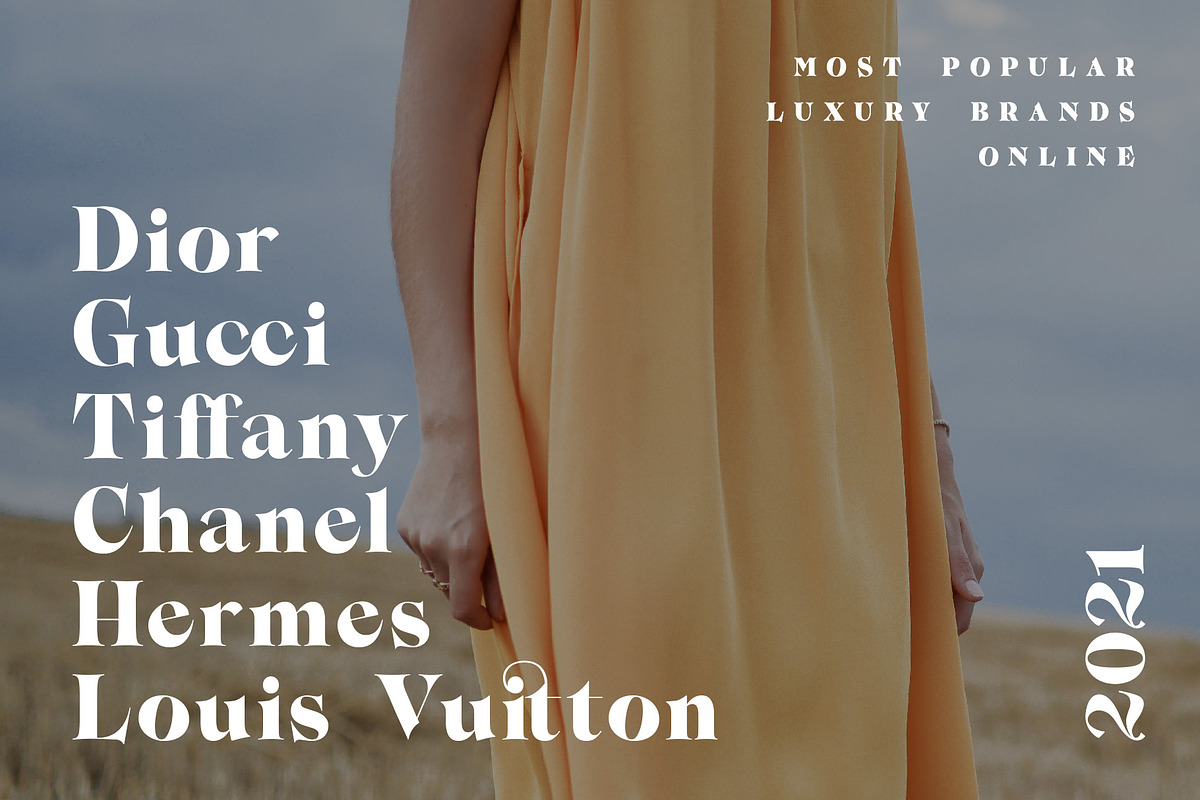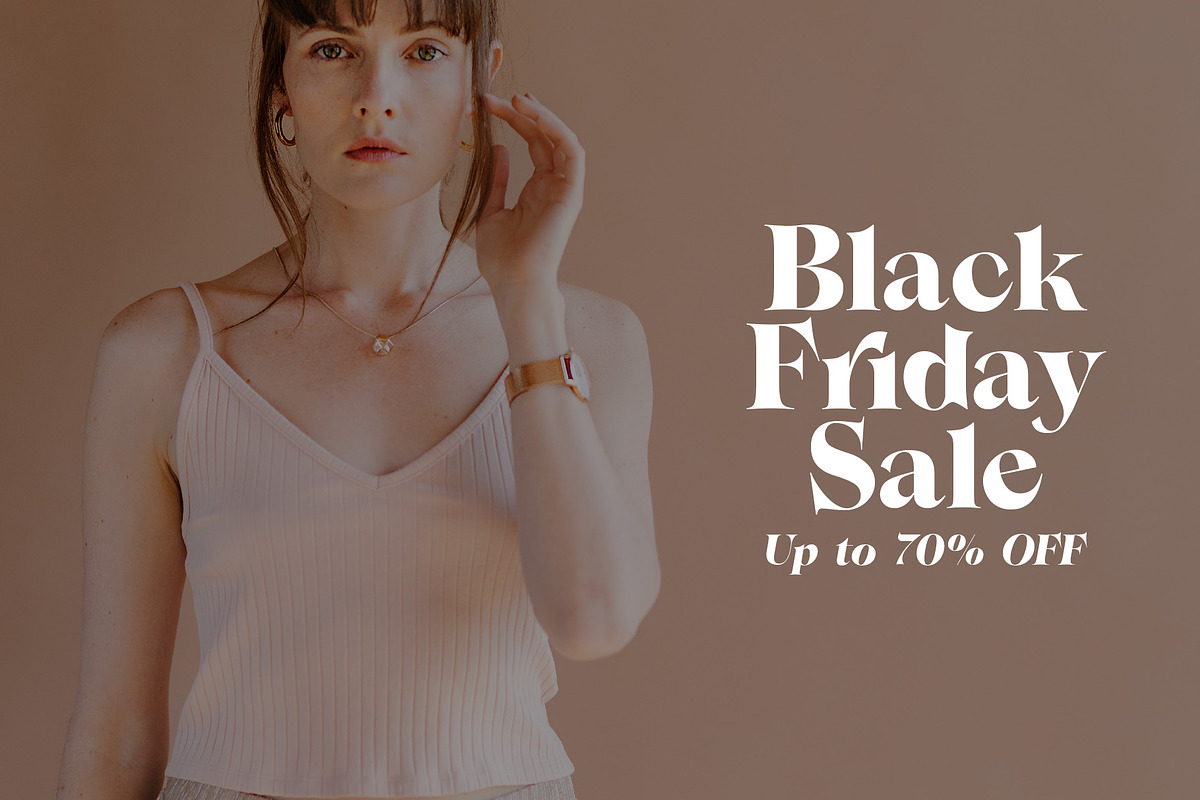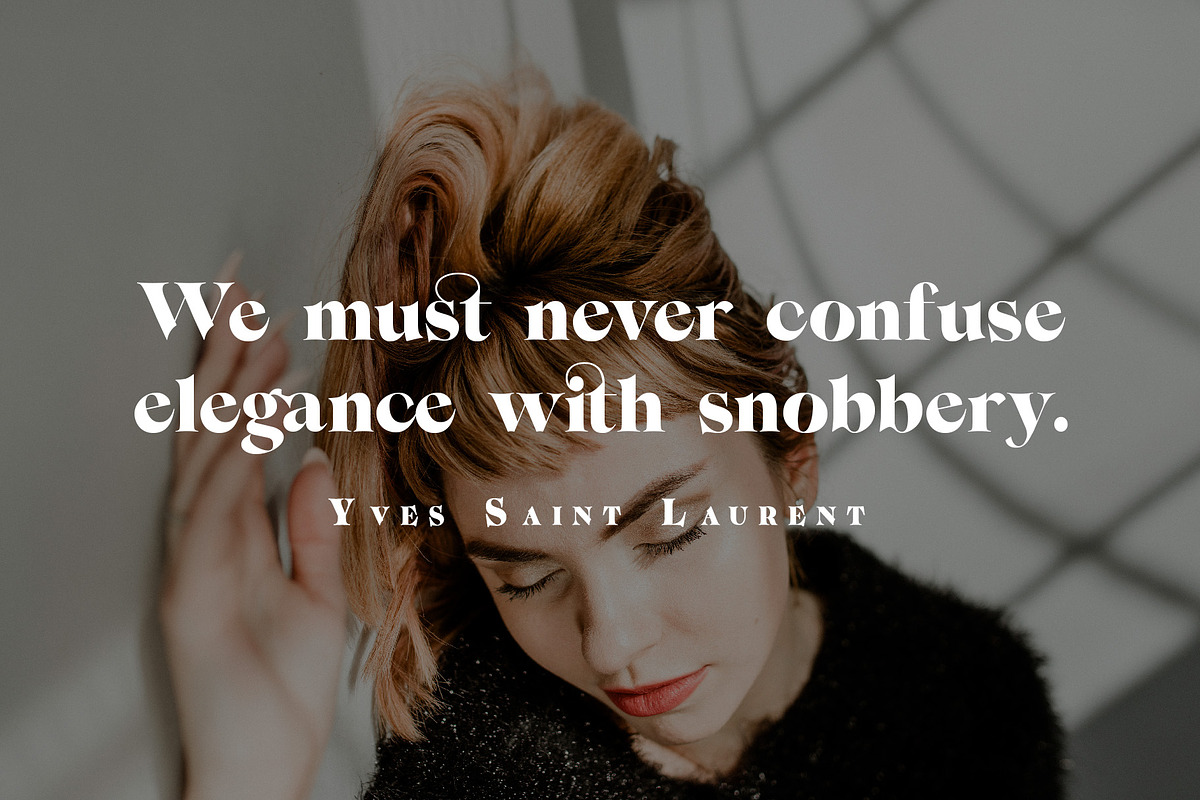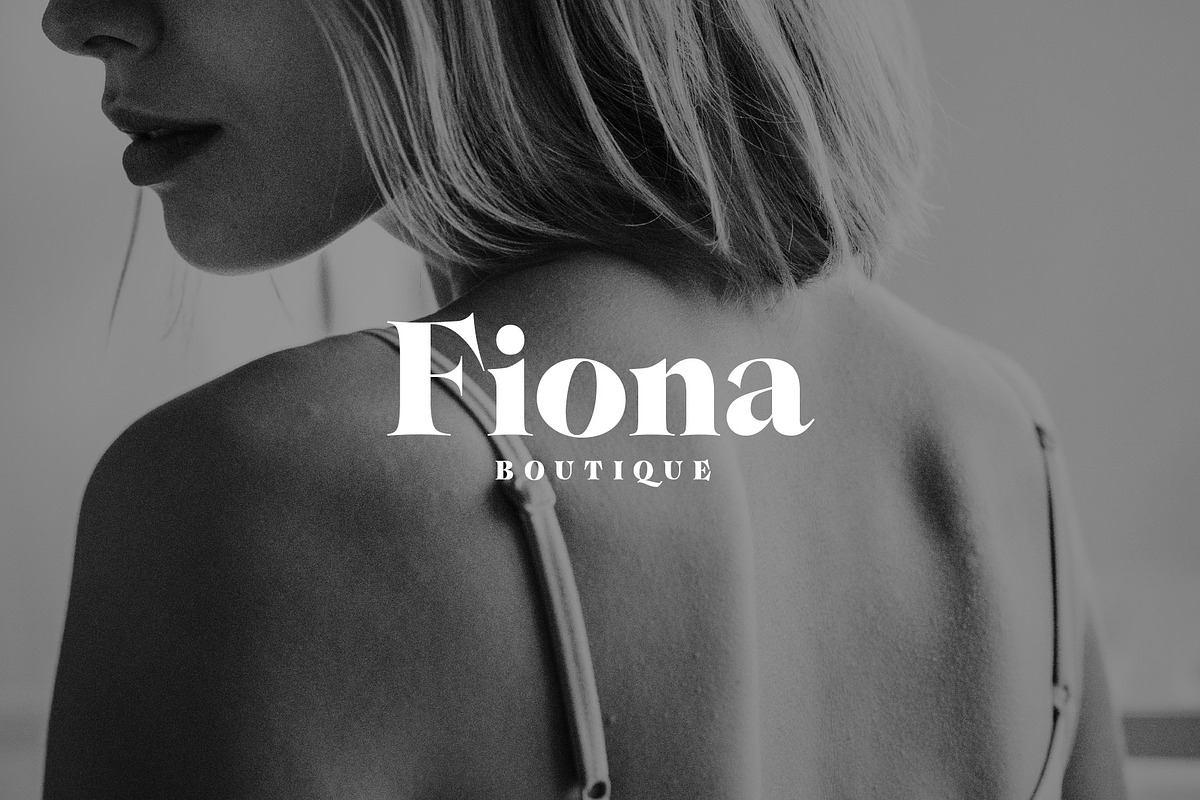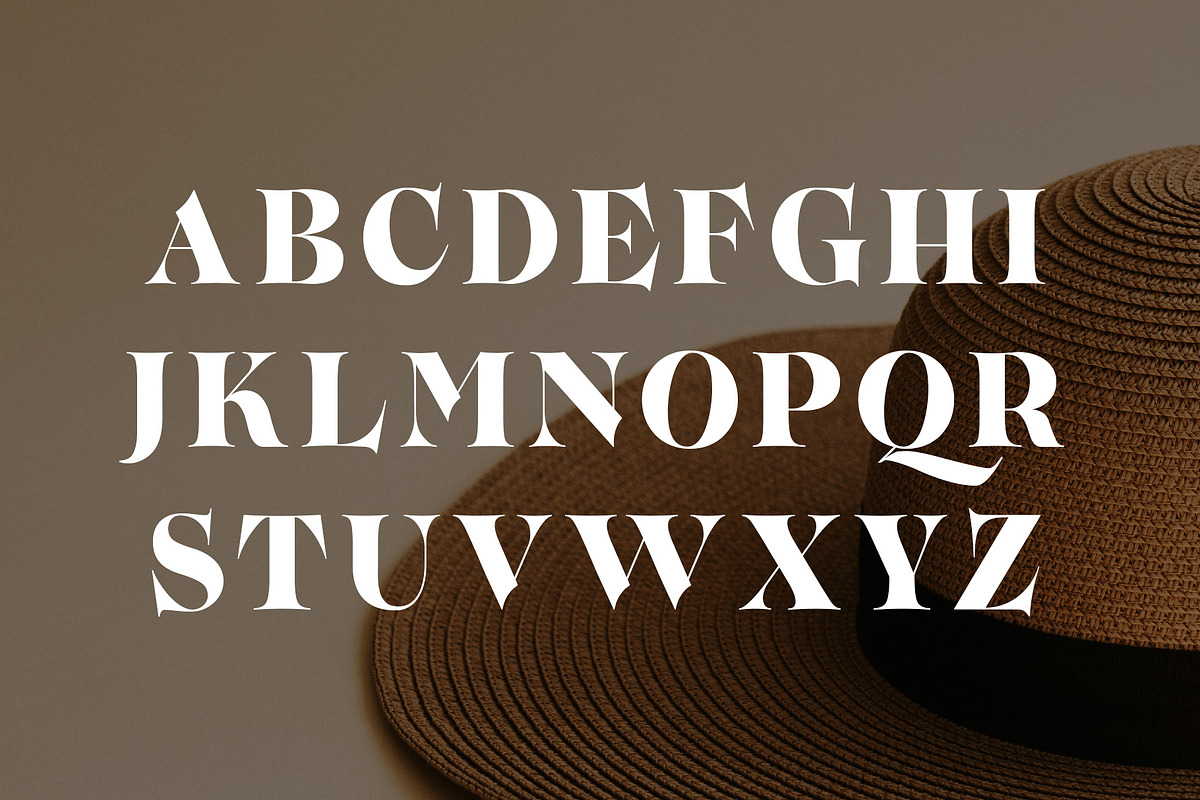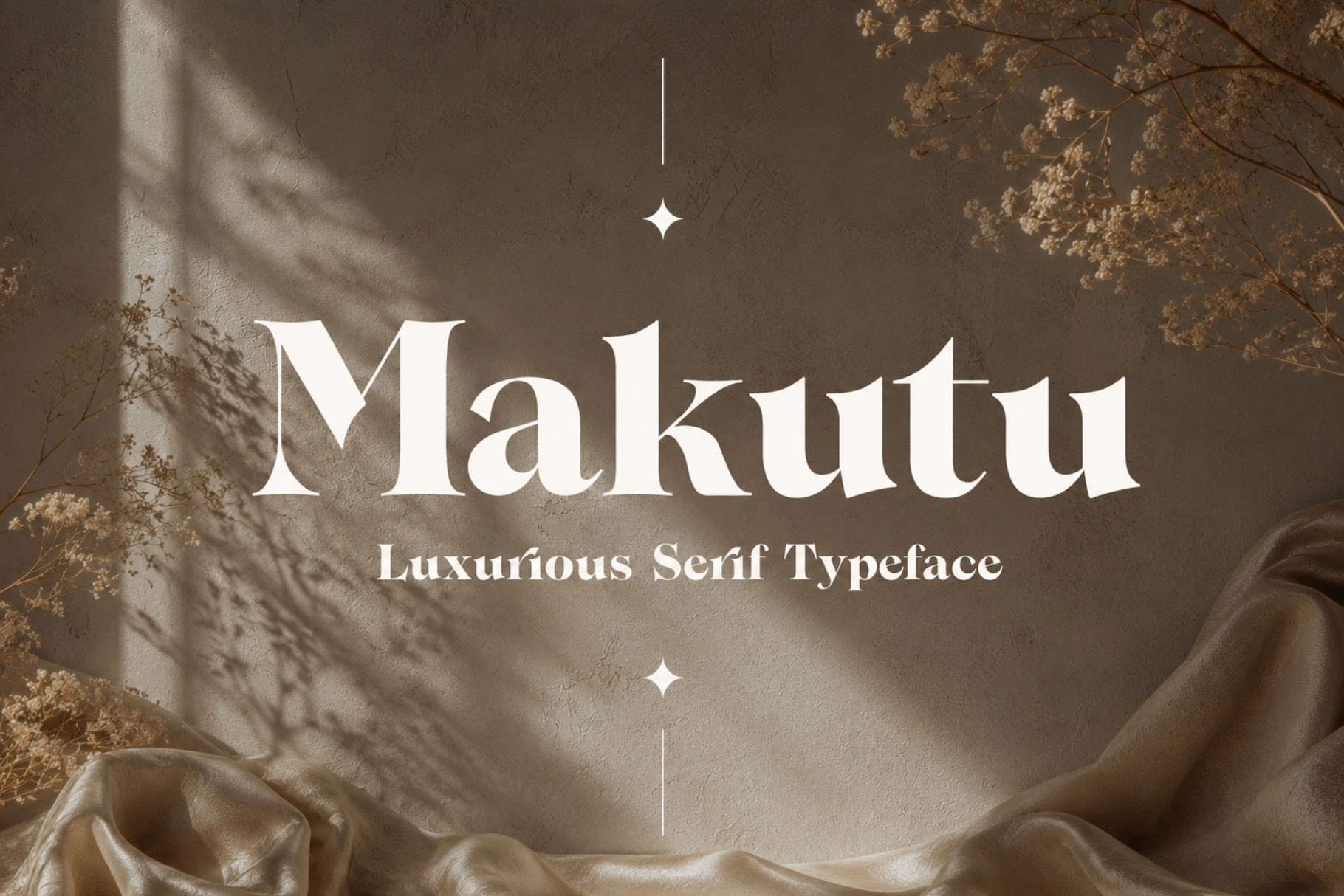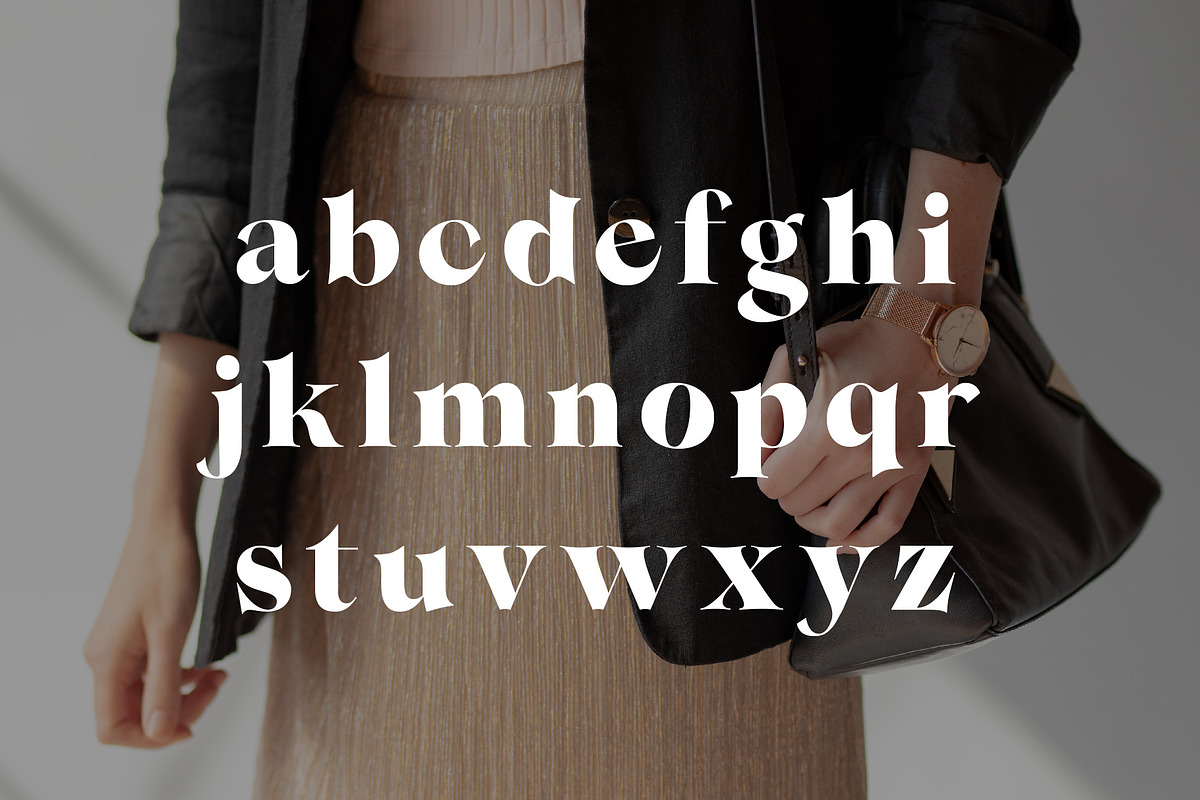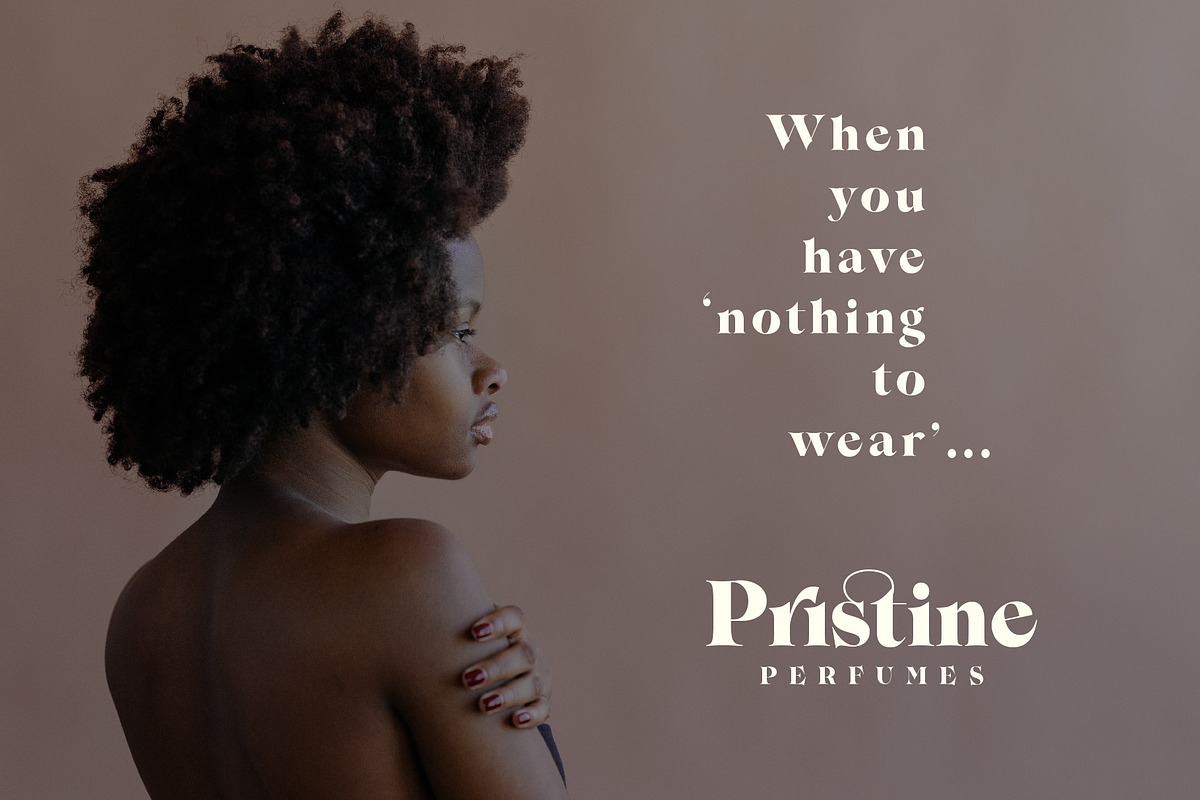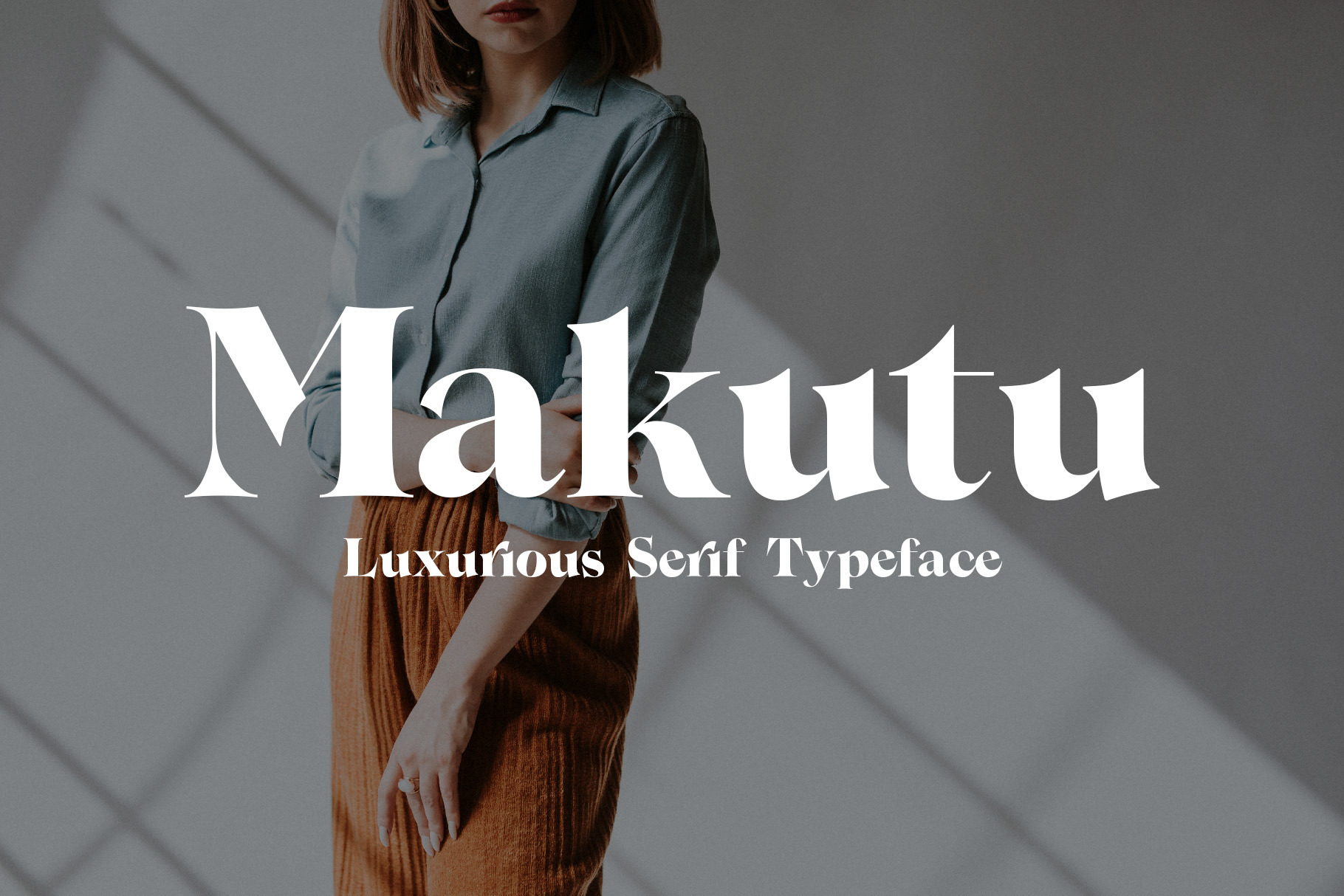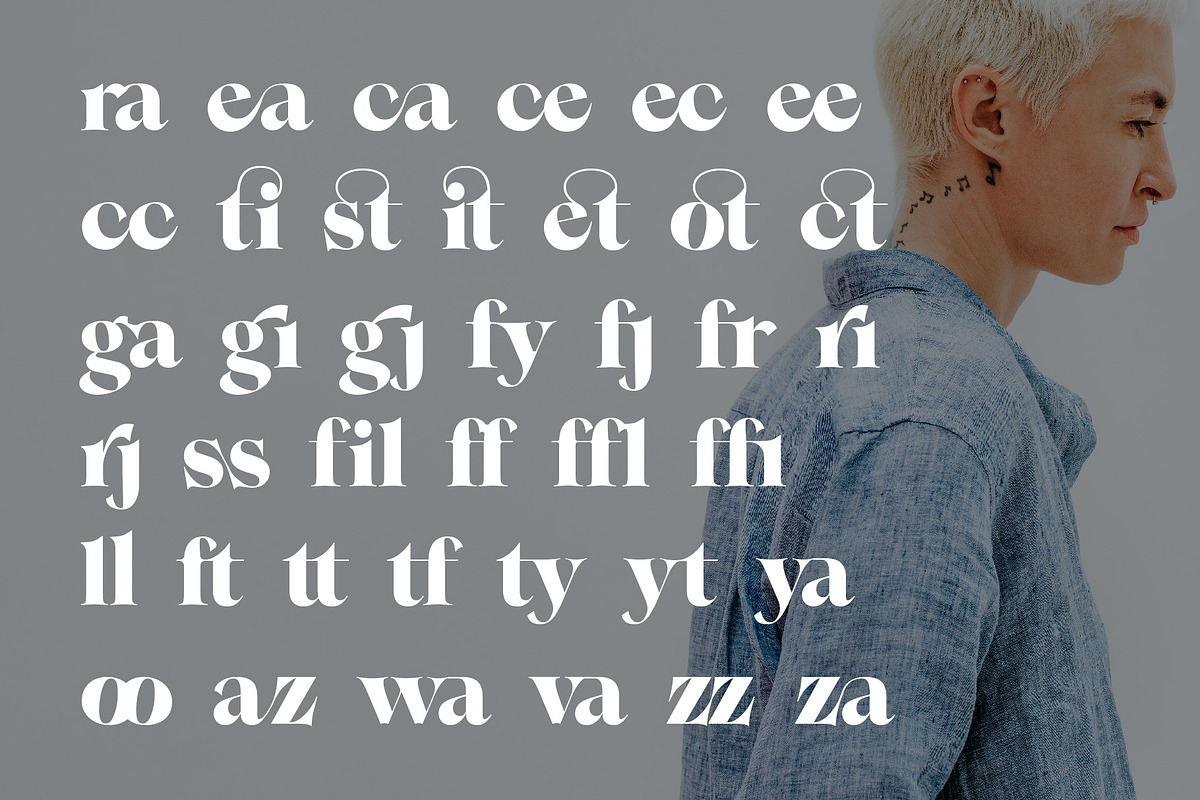
Makutu - Luxurious Serif Typeface
Makutu is a serif display typeface. This gorgeous font is versatile, stylish, and most importantly timeless. Perfect for branding, invitations, fashion, magazines, advertisements, posters, business cards, social media, and much much more.
Makutu comes with upper & lowercase characters, all punctuations, and numerals. Most importantly it comes with stunning ligatures to help your text flow naturally while adding a custom-made feeling to your designs. Happy designing!